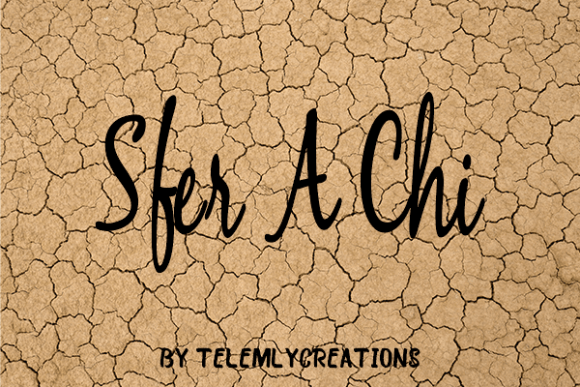
Introduction to Sfer a Chi Font
As a designer, there’s nothing quite like the thrill of bringing a creative project to life. It’s that moment when your vision starts to take shape, and you can see the excitement in your work. But sometimes, it’s the smallest details that can make all the difference. That’s where Sfer a Chi Font comes in – a delightful, handwritten font that adds a touch of personality to any design.
With its unique, hand-drawn style, Sfer a Chi Font is the perfect choice for designers looking to add a high-quality, eye-catching element to their work. Whether you’re creating a logo, branding, or quote, this font is sure to bring your design to life. And the best part? It’s available for free download, making it an invaluable resource for designers on a budget.
Key Features of Sfer a Chi Font
- High-quality, unique design perfect for creative projects
Honest Review: Sfer a Chi Font
I recently stumbled upon the Sfer a Chi Font and was excited to give it a try for my current design project. As a designer, I’m always on the lookout for high-quality fonts that can elevate my creative project. This font did not disappoint.
What works well with the Sfer a Chi Font is its sleek and modern design. It features a unique blend of curves and straight lines that make it perfect for a variety of design applications. The font also comes with a transparent background, which makes it easy to use with any design element.
- ✨ High-quality design that is perfect for modern design projects
- ✨ Unique blend of curves and straight lines
- ✨ Transparent background for easy use
One limitation of the Sfer a Chi Font is that it may not be suitable for all design projects. The font’s modern design may not be the best fit for traditional or classic design projects. Additionally, the font may not be compatible with all operating systems.
Overall, I was impressed with the Sfer a Chi Font and would definitely recommend it to designers who are looking for a high-quality font for their creative project. With its sleek design and transparent background, it’s a valuable resource for any design project.